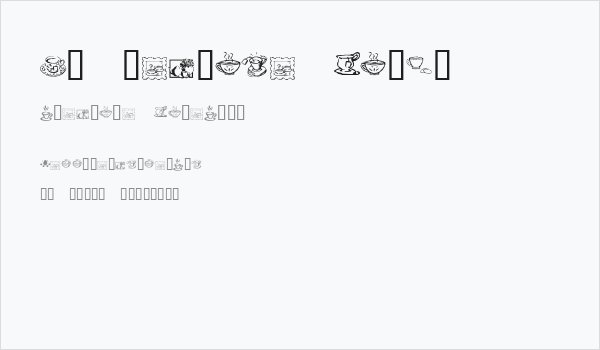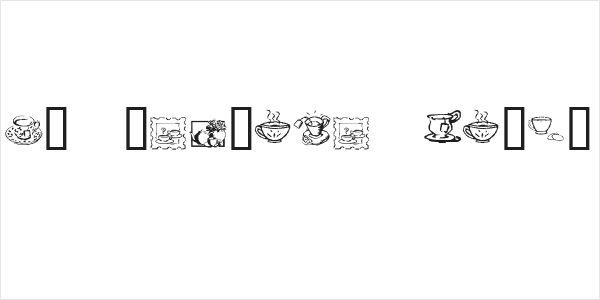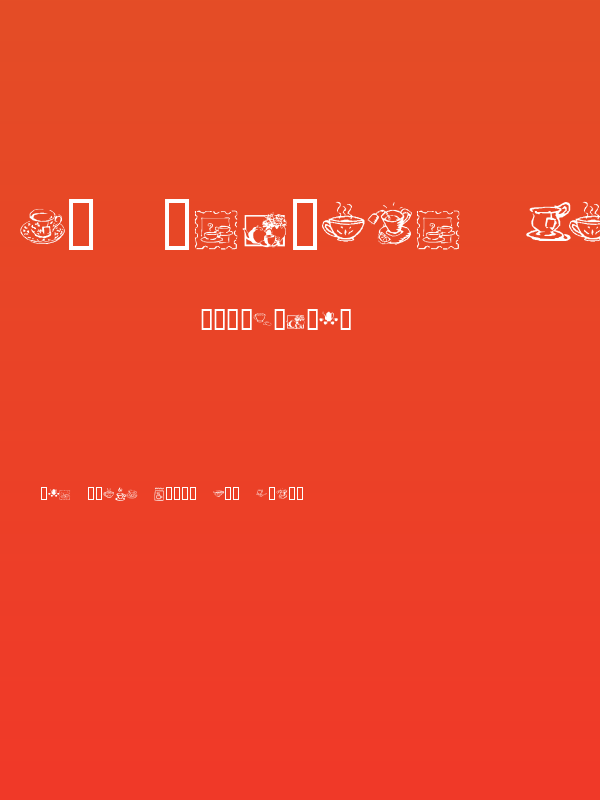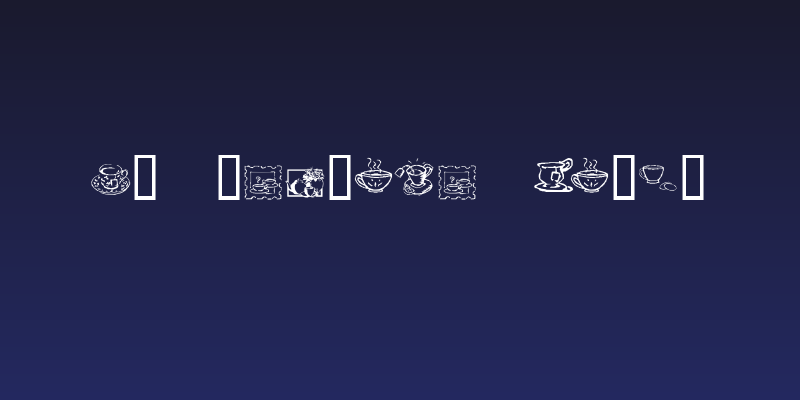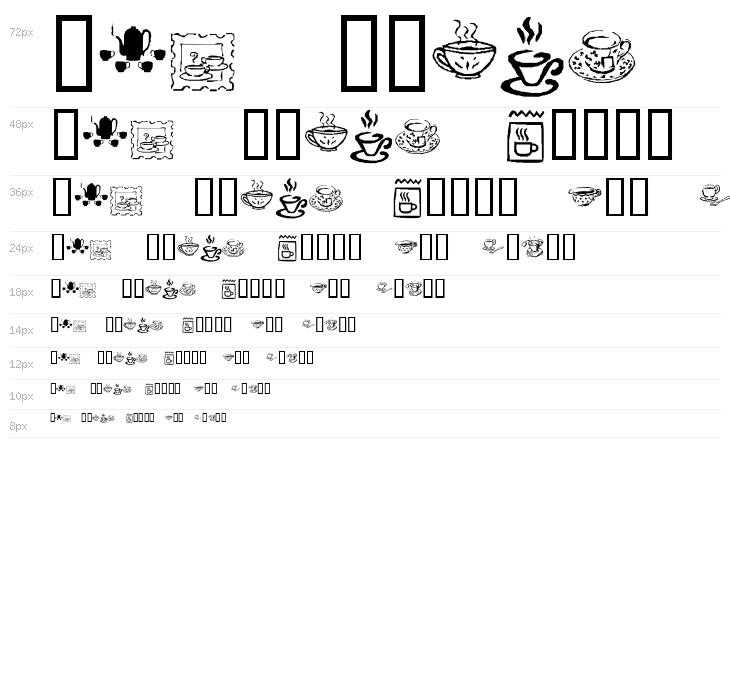
KR Teatime Dings Font
KR Teatime Dings Description
This is a decorative font featuring a collection of charming tea-themed illustrations. Each character is represented by a unique doodle, including teacups, teapots, steaming mugs, and other related motifs. The style is playful and whimsical, with a hand-drawn feel that adds a touch of warmth and personality. The illustrations are detailed yet simple, making them suitable for a variety of creative projects. The font is not intended for traditional text but rather for decorative purposes, adding a thematic element to designs.
Use CaseLogos, Decorative elements, Invitations
Proposed ProjectsIdeal for tea party invitations, cafe menus, scrapbooking, and themed event decorations.